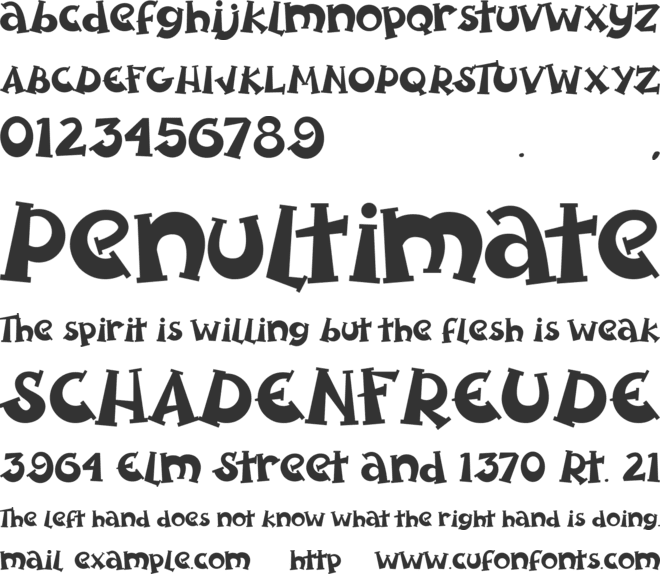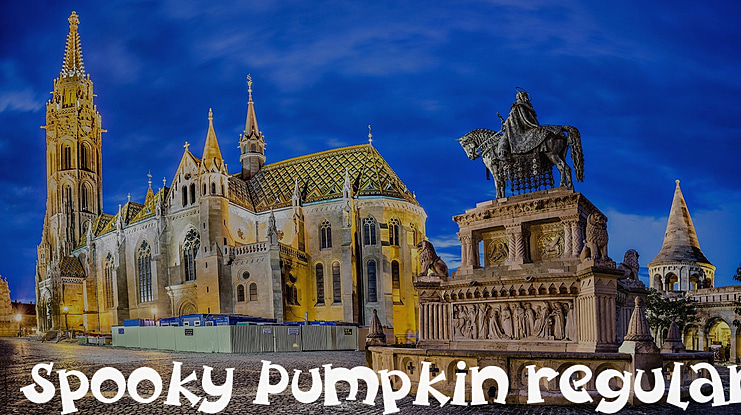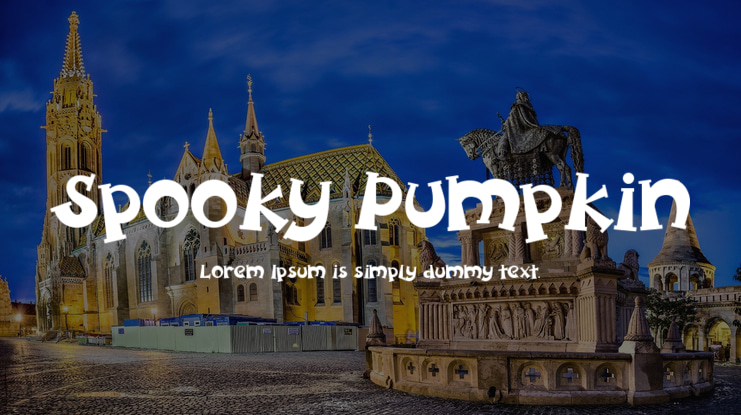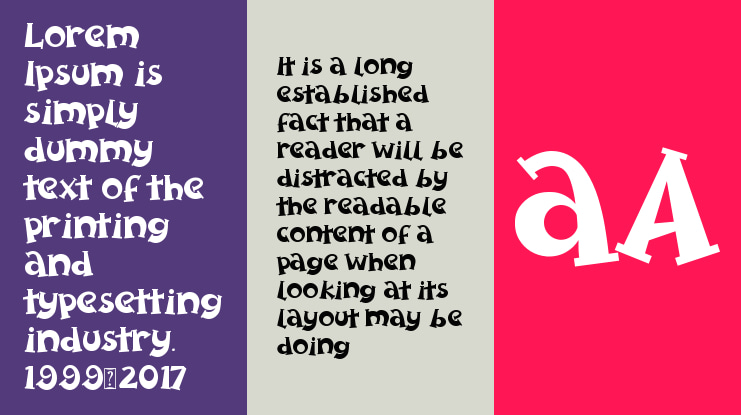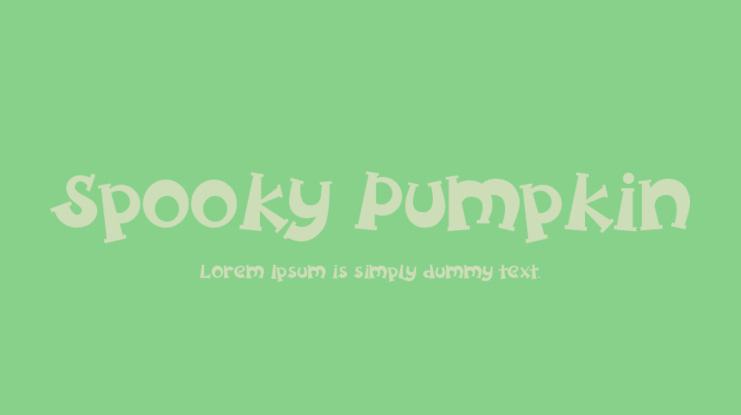
Spooky Pumpkin is an incredibly unique and bold display font. Add this font to your creative Halloween themed ideas and notice how it will make them stand out!